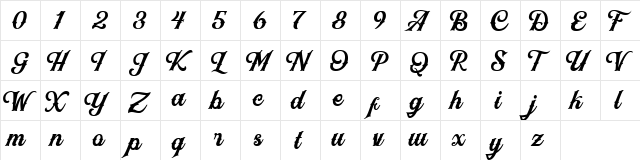
Black Jack Script Regular
Design Context for Black Jack Script Typeface
Black Jack Script brings a calligraphic fluidity to the page — its connecting strokes and expressive curves give it an unmistakably human quality.
Font Pairing: Combine Black Jack Script with a simple geometric sans for maximum contrast — the tension between flowing curves and clean structure is a classic typographic pairing.
Pro Tip: Use Black Jack Script for short runs of text — names, titles, or taglines. Extended body copy in script faces tires the eye quickly.